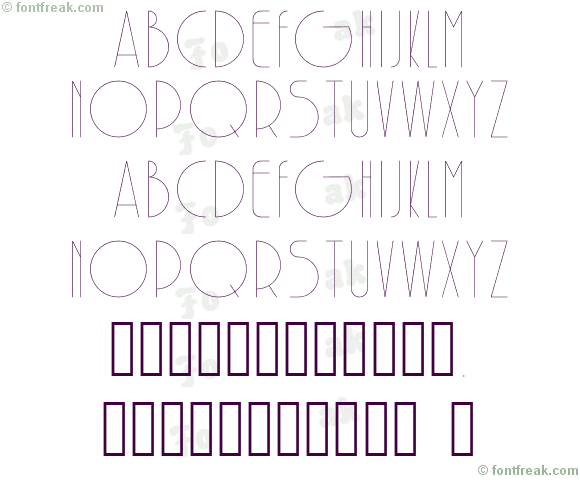
Solar
The Solar font by Manuel Ramos is a captivating display typeface that exudes a contemporary flair. This font, classified as a sans-serif, showcases a unique blend of geometric shapes and organic curves, making it versatile for various design projects. The strokes are consistent in weight, providing a clean and modern appearance, while the subtle contrast adds a touch of sophistication. The spacing between characters is thoughtfully designed to enhance readability, making it suitable for both headlines and body text.
Ideal for a range of applications, the Solar font shines in contexts such as wedding invitations, movie posters, and promotional materials for events. Its modern aesthetic makes it a great choice for tech startups and creative agencies looking to convey innovation and forward-thinking. Additionally, content creators who aim to establish a strong visual identity can leverage this font for social media graphics, ensuring that their posts stand out in a crowded digital landscape.
What sets the Solar font apart is its ability to merge simplicity with artistic flair, making it a standout choice for anyone looking to infuse their work with a modern touch. Whether you’re crafting a bold headline or a delicate invitation, the Solar font free download provides the perfect solution to elevate your typography game. Its clean lines and contemporary style ensure that your designs will captivate and engage your audience.